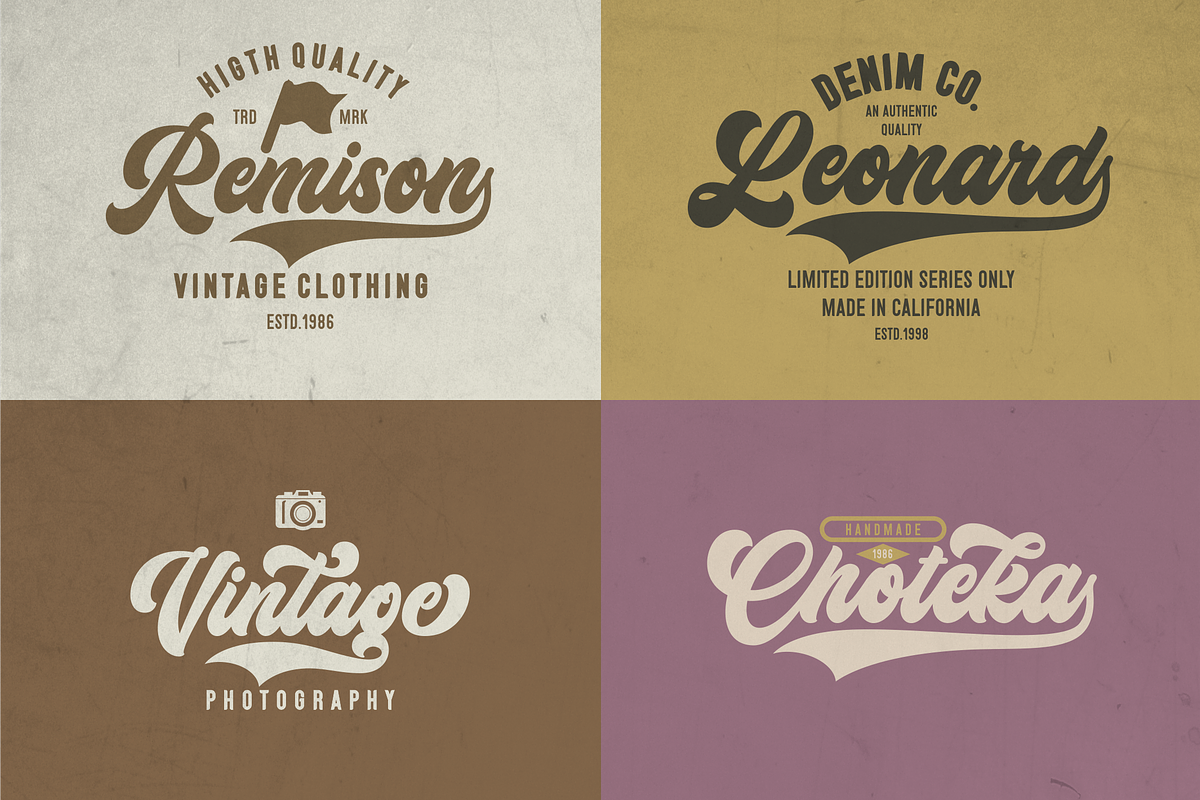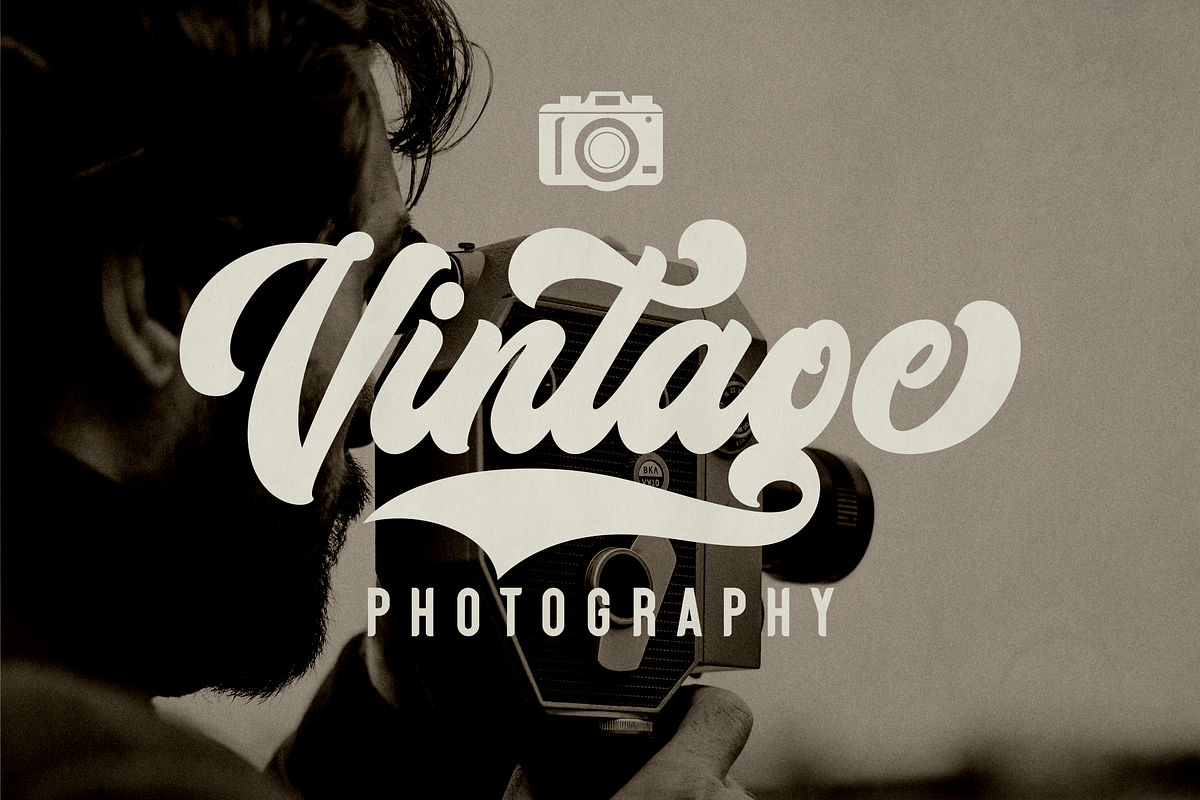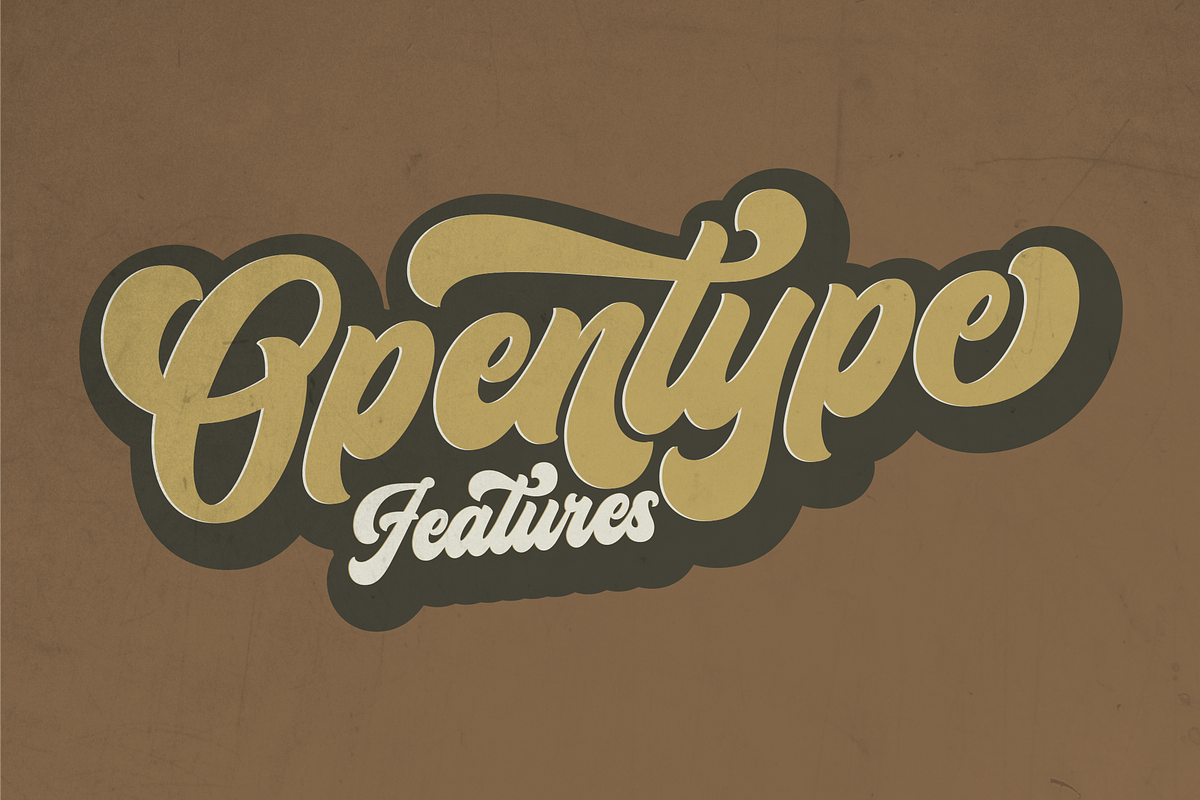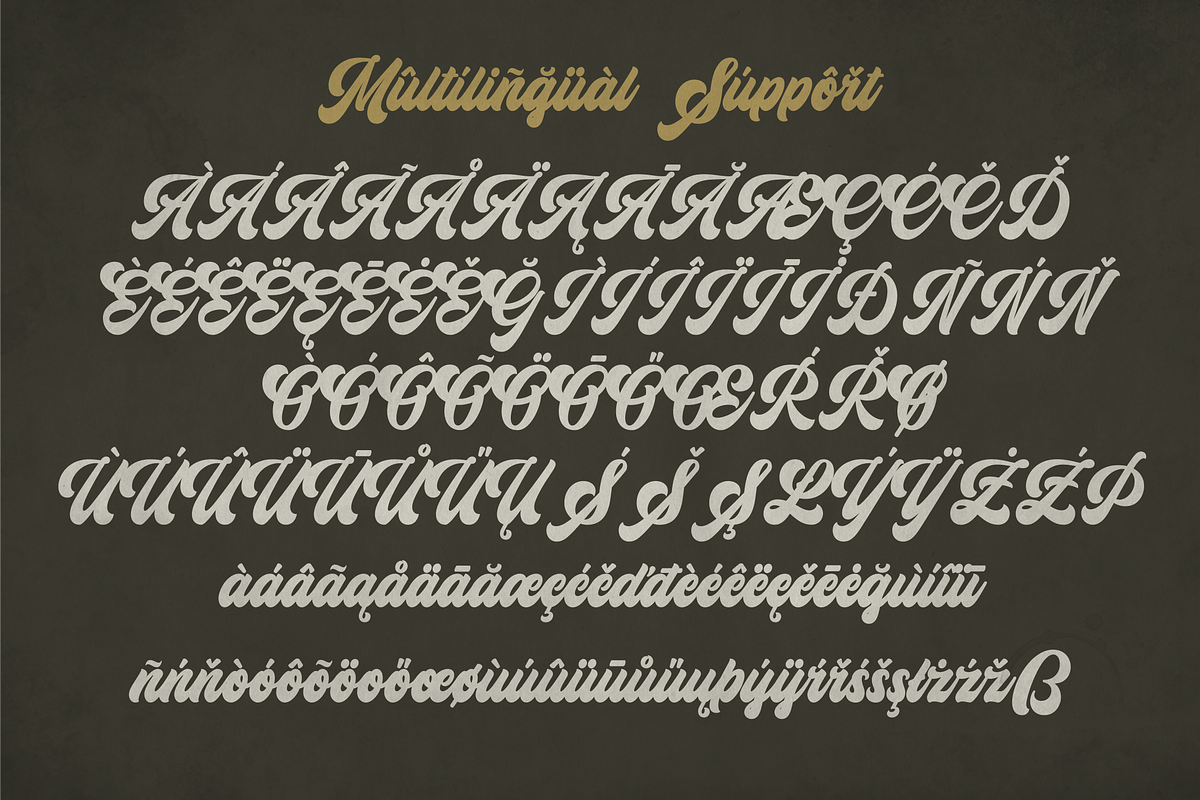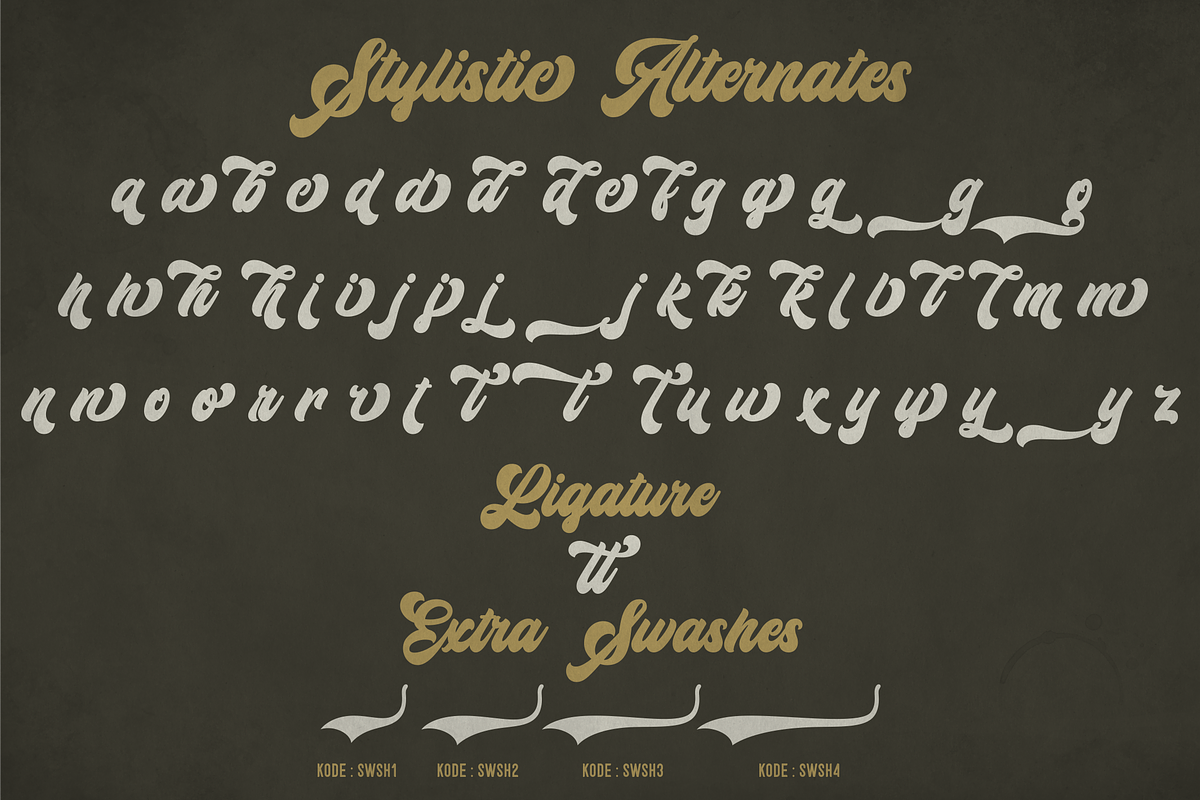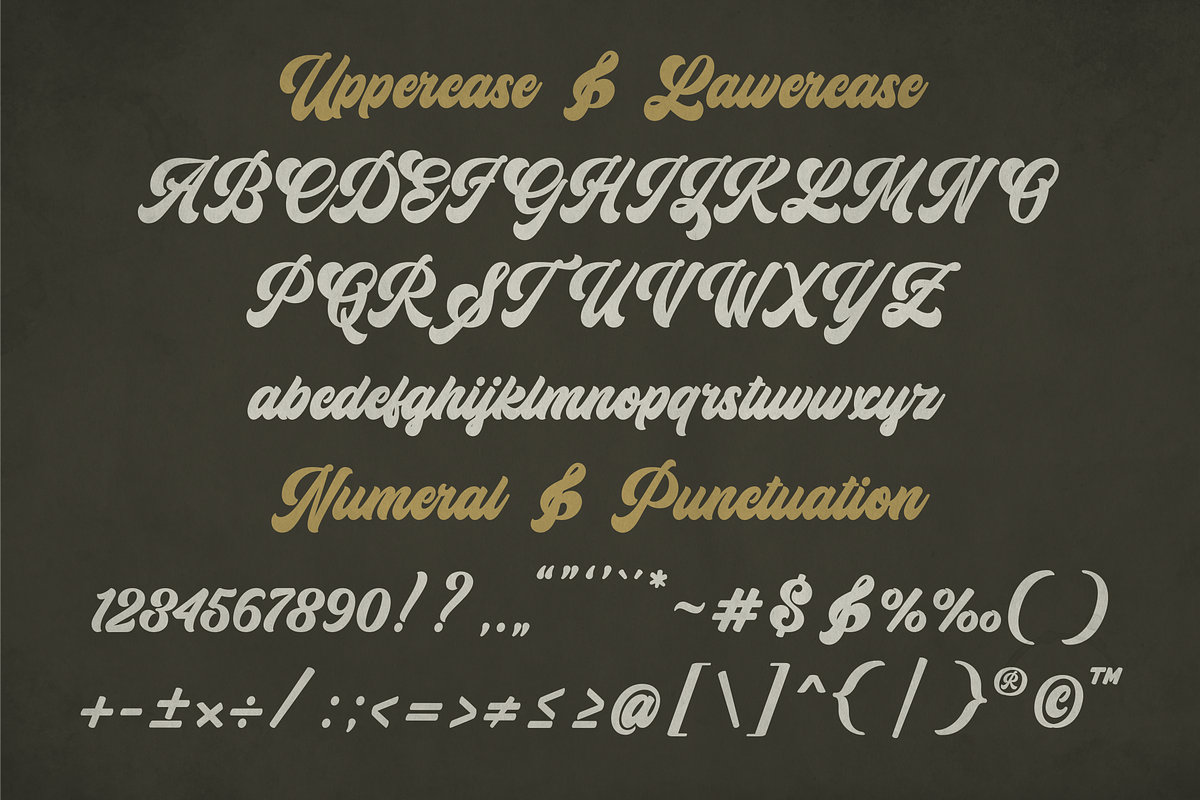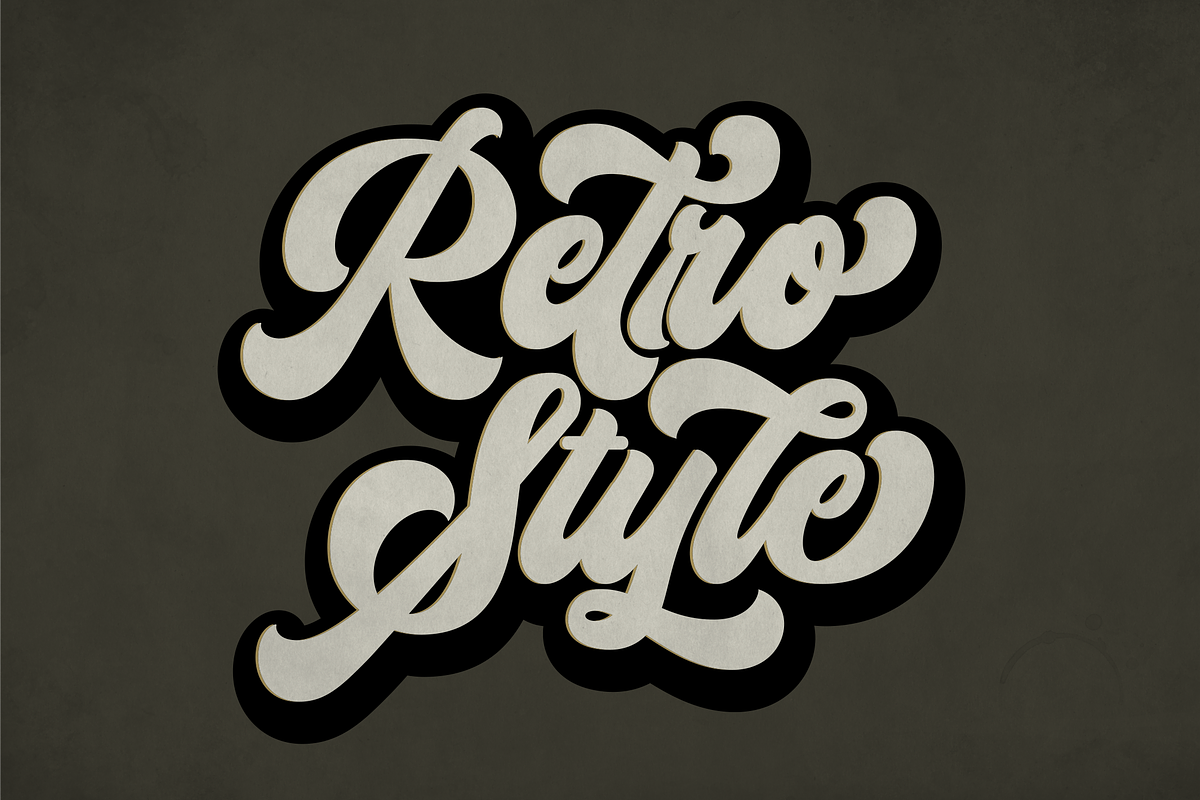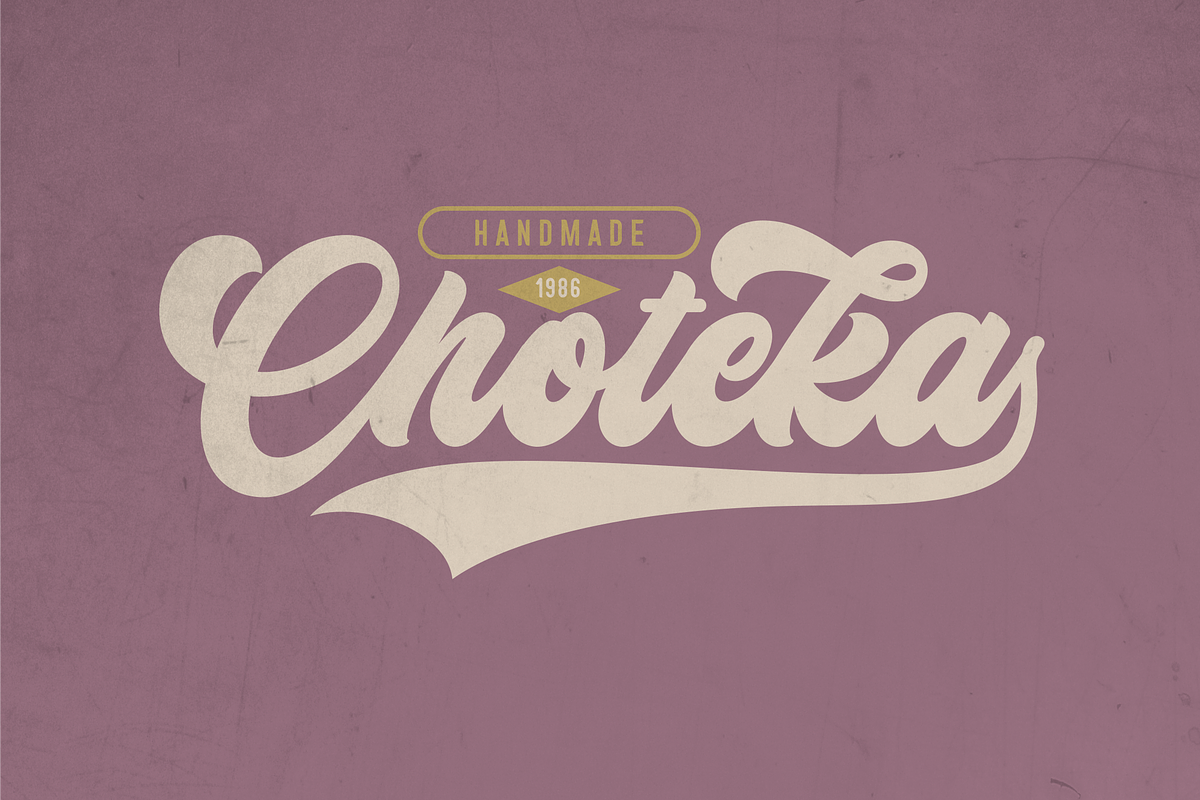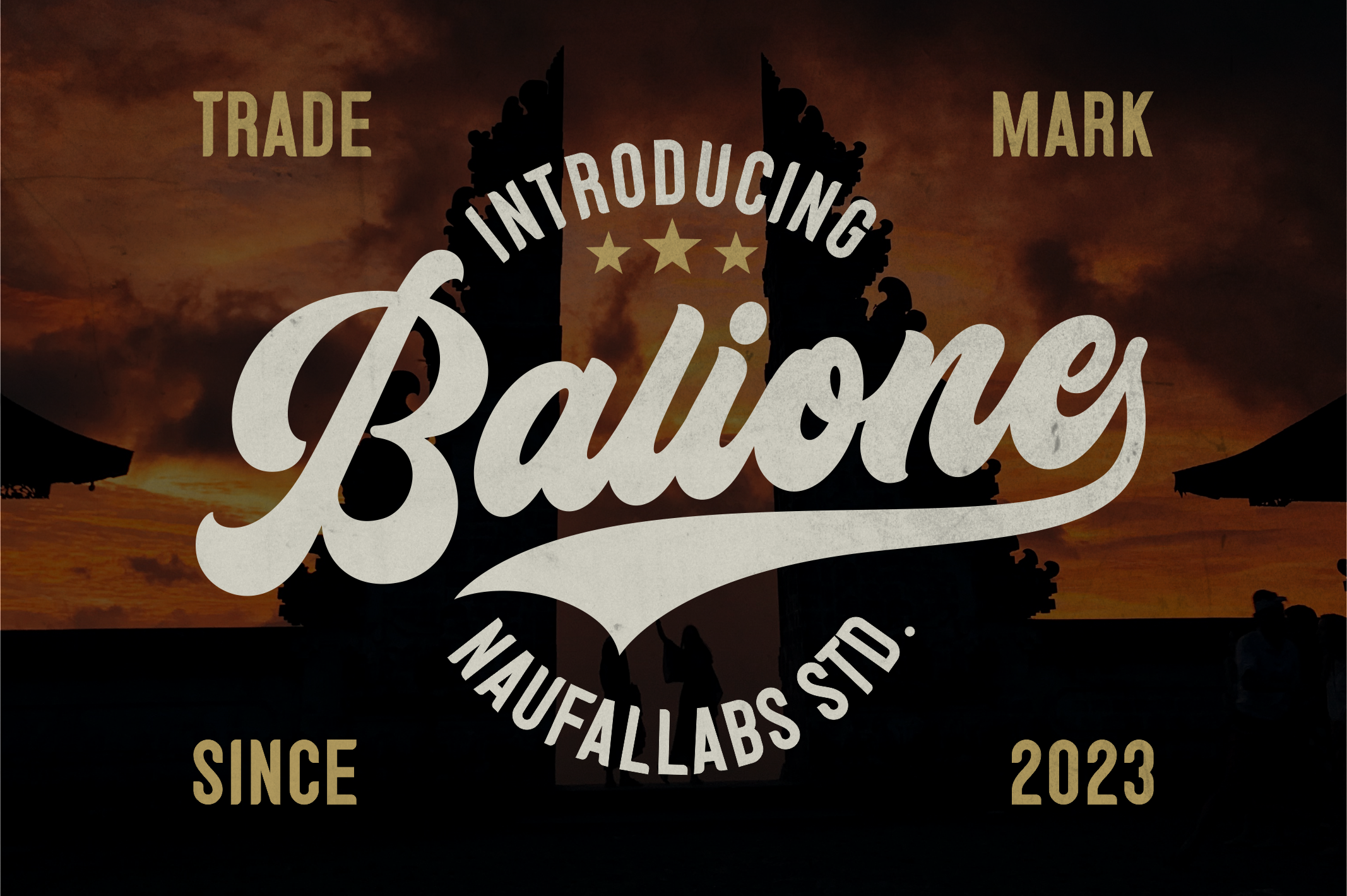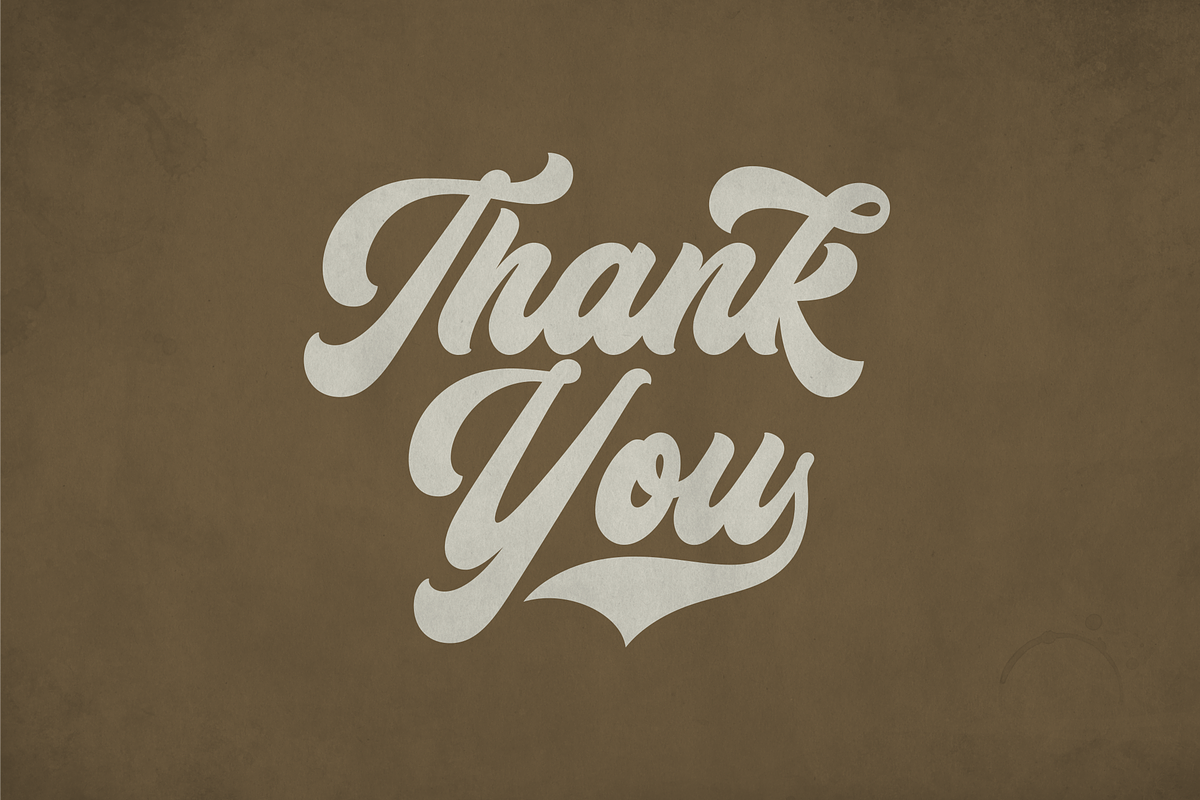
Balione Retro Font
Balione is a retro font that will take you back in time with its unique and stylish design. With its vintage vibe and classic charm, Balione is the perfect choice for anyone who wants to add a touch of nostalgia to their designs.
This font is carefully crafted to capture the essence of retro typography, with its bold and geometric shapes that evoke a sense of the past. It is perfect for creating logos, headlines, posters, and other designs that require a bold and eye-catching display.
With its premium license, you'll have access to a full set of characters, including uppercase and lowercase letters, numbers, and symbols. You'll also get access to additional features such as ligatures, alternates, and swashes, which will give your designs even more character and personality.